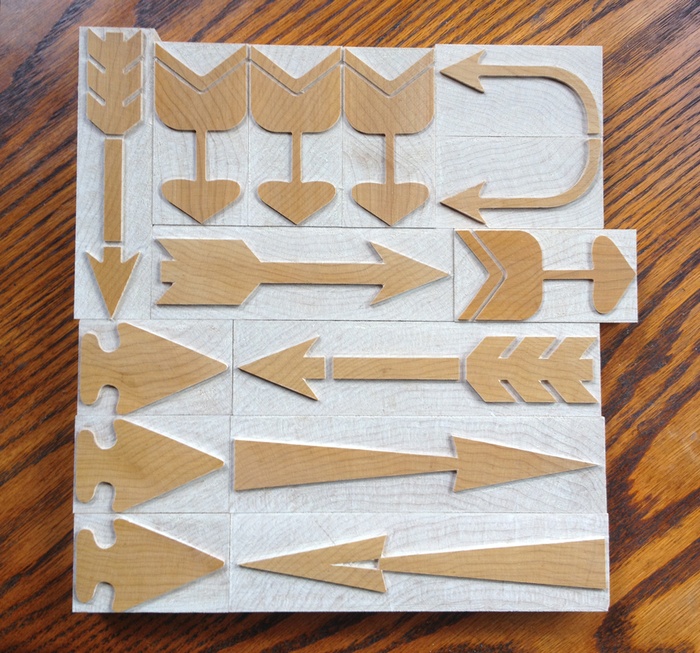
Every Which Way
Here at Virgin Wood Type (VWT) world headquarters, every dawn springs with the potential of finding a gem passed over or forgotten. For instance, in November while looking through a box of shapes from American Wood Type (AWT) Geri came across some beat up arrows. One was curved, and the other was your standard-issue arrow. Knowing that our pantograph would not take kindly to such roughed-up patterns, she had the proverbial light bulb moment. Why not redraw these arrow patterns and offer them for sale? Well, who can stop at two arrows? Not VWT.
Shortly after the new year I walked into the office and saw Geri waist-high in print specimen books. Zombie-eyed after pouring through a variety of source material, she told me that she’d found more arrows to offer along with the AWT originals. Working in Illustrator Geri drew these arrows with abandon. (Imagine Edward Scissorhands in the movie of the same name trimming and sculpting the hedges with wild abandon and amazing artistry.) Derek also jumped in to draw the arrowhead pattern.
By the by, Geri’s goal when looking for additional arrows was to widen the offering: art deco, feather, and arrowhead. As a printer herself, Geri knows that she’d want a specific stylized arrow, like the deco arrow, to work with Preissig Scrape on a broadside instead of the feather arrow.
Additionally, David Wolske’s awesome Aldine arrow is now available for sale by itself. Aldine arrow